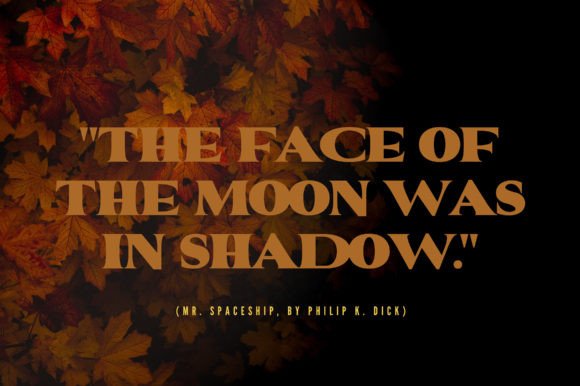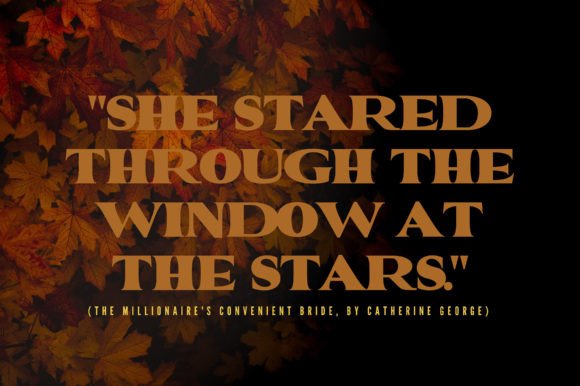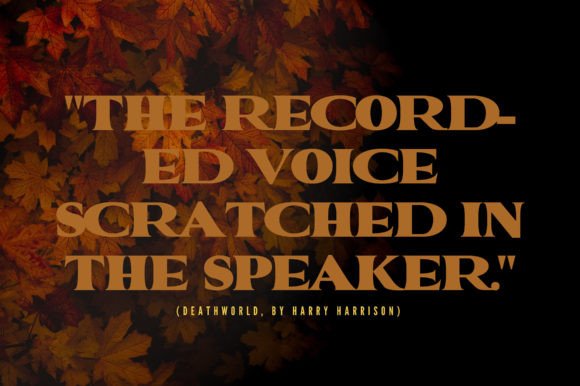
Introduction to Karter Font
Karter is a classic, chic, and stylish serif typeface.
It perfectly suits elegant design projects such as packaging design, cosmetics design, perfume, fashion, jewels, posters, and many more .